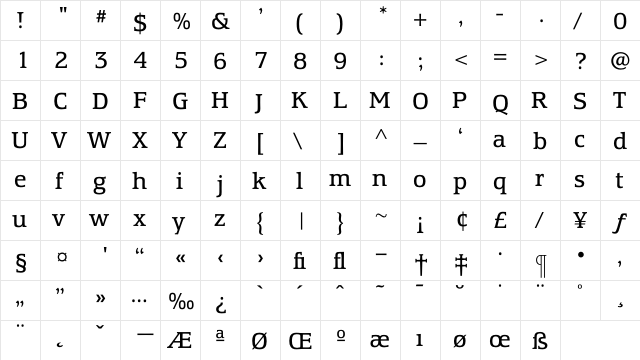
EquestrienneBook Regular
Design Context for EquestrienneBook Typeface
EquestrienneBook takes a measured approach to typography — its balanced proportions and neutral character make it a reliable workhorse for both digital and print work.